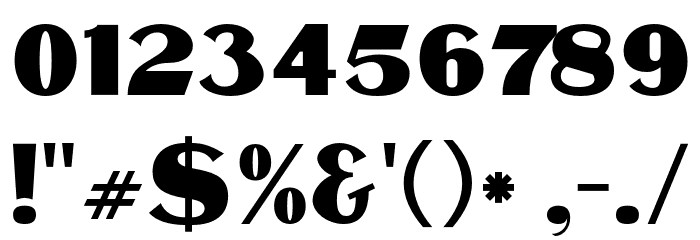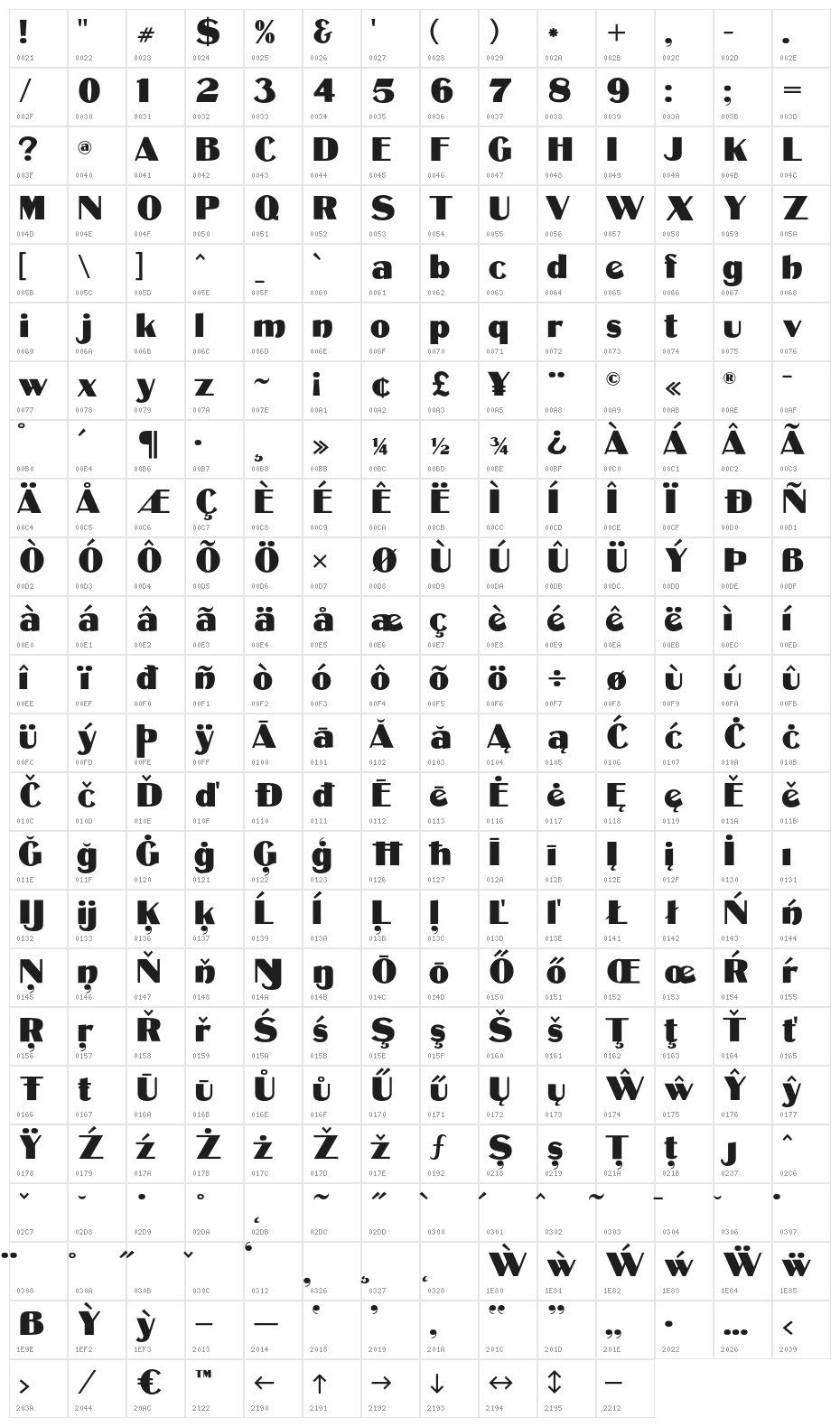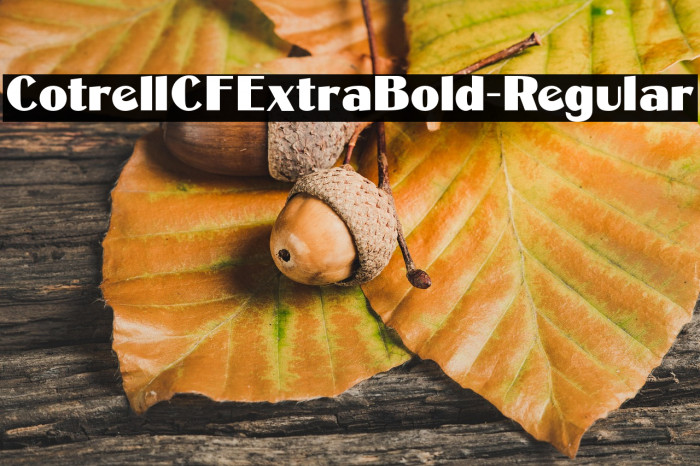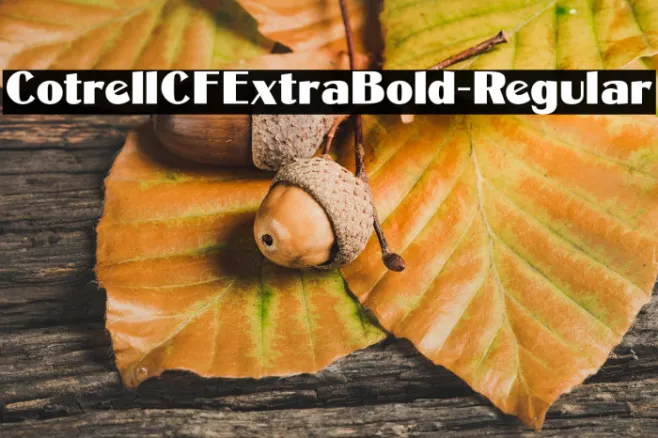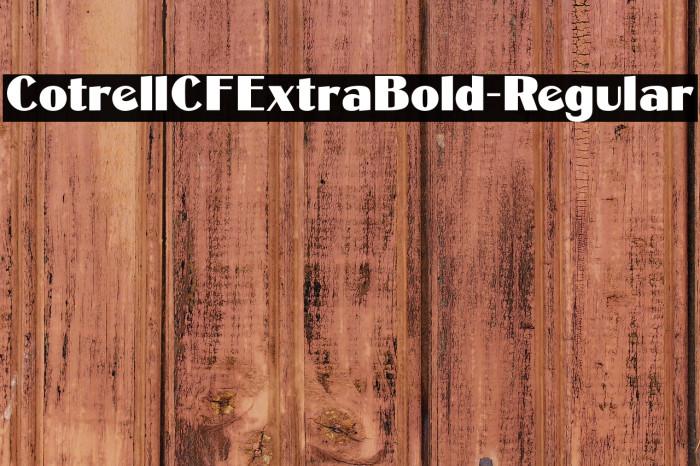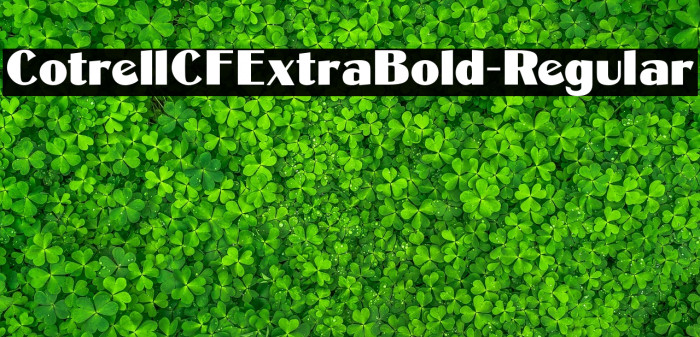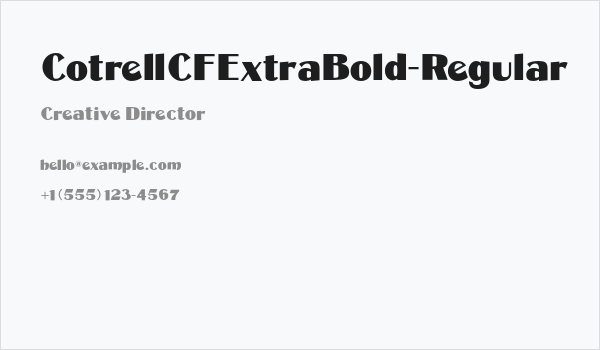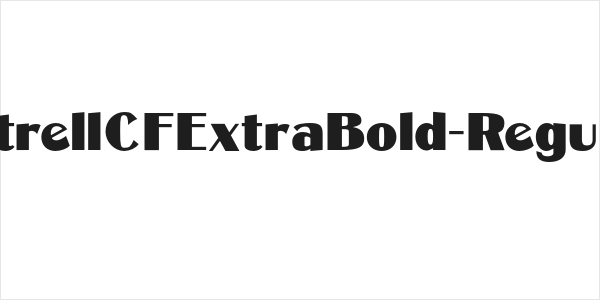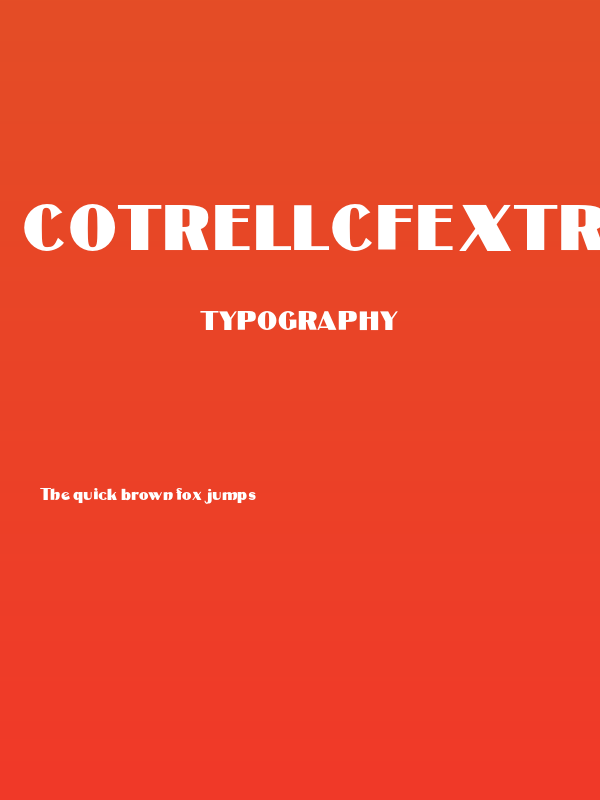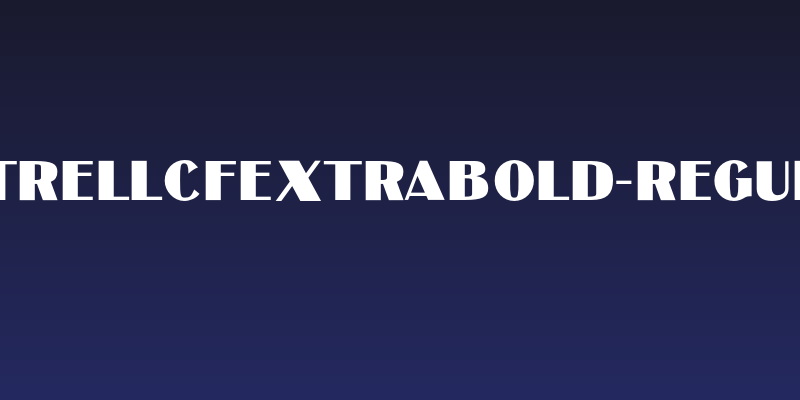
CotrellCFExtraBold-Regular Font
CotrellCFExtraBold-Regular Description
This font features a bold and commanding presence with thick, heavy strokes that create a strong visual impact. The uppercase letters are particularly wide and robust, while the lowercase letters maintain a consistent weight, offering a harmonious balance. The numerals are equally bold, ensuring they stand out prominently. The special characters are designed with the same boldness, making them suitable for attention-grabbing designs. The overall style is modern and assertive, ideal for making a statement.
| Proposed Projects | Ideal for headlines, posters, branding materials, and any design requiring a bold statement. |